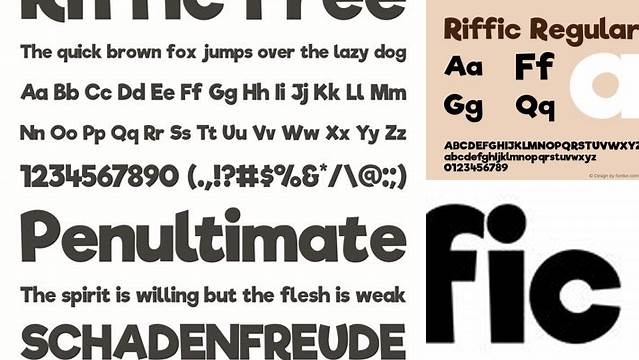
Hey guys! If you're on the hunt for a cool, versatile font, you've landed in the right spot! We're diving deep into the world of the Riffic Regular font, and the best part? You can snag a free download! This article is your ultimate guide, covering everything from the font's unique characteristics to where you can find it and how to use it in your projects. So, buckle up, because we're about to embark on a font-tastic adventure! Let's get started and explore why the Riffic Regular font is a must-have for your font collection.
What is Riffic Regular Font?
First things first, what exactly is the Riffic Regular font? Well, it's a stylish, modern font that's perfect for a wide range of design projects. Think of it as your design Swiss Army knife – it's adaptable, clean, and looks great in various contexts. It's known for its readability and its ability to add a touch of elegance to any project. Whether you're a seasoned designer or just starting, the Riffic Regular font is a great choice. The design of the Riffic Regular font typically features clean lines and a balanced aesthetic, making it ideal for both headlines and body text. Its versatility means it can be used for everything from website design to print materials. Its design makes it stand out without being overwhelming, ensuring your message is conveyed clearly and with style. Many designers and creatives adore the Riffic Regular font due to its inherent flexibility. Its neutral yet eye-catching design allows it to complement various design styles and themes. This flexibility is a key reason why it's so widely used and a valuable asset in any designer's toolkit. When you're looking for a font that works across multiple platforms and projects, the Riffic Regular font fits the bill. It’s suitable for both digital and print media, providing consistent results and a professional appearance. This consistency is crucial for maintaining brand identity and ensuring your message is understood, no matter the medium. Plus, it looks super rad, right?
Key Features of Riffic Regular Font
So, what makes the Riffic Regular font stand out? Let's break down some of its key features that contribute to its popularity and usability. The first thing you'll probably notice is its clarity. The Riffic Regular font is designed to be highly readable, making it a great option for both headlines and body text. This is especially important in today's world, where content is consumed quickly across various devices. The font’s balanced design ensures that each letter is easily distinguishable, reducing eye strain and increasing readability. Another noteworthy feature is its versatility. The Riffic Regular font adapts well to different design styles and contexts, making it suitable for a wide range of projects. Whether you are working on a website, a print advertisement, or social media graphics, this font provides a professional and modern look. You can pair it with other fonts to create a unique aesthetic, or use it as a primary font to build a consistent brand identity. Finally, it's the aesthetic of the Riffic Regular font. It balances modernity with a touch of simplicity, making it visually appealing without being overly distracting. Its clean lines and balanced letterforms add a touch of elegance to any design, ensuring that it complements your message rather than competing with it. This aesthetic feature allows the font to blend seamlessly with different design elements, maintaining a cohesive and polished look. When you choose the Riffic Regular font, you're also selecting a font that can stand the test of time. Its classic design avoids trends that could make it seem outdated. This enduring quality ensures that your designs remain relevant and aesthetically pleasing for years. The enduring nature of the Riffic Regular font means you invest in a design element that is both practical and stylish, offering a consistent and reliable option for all your needs.
Comparing Riffic Regular to Other Fonts
When choosing a font, it's essential to compare it to similar options. The Riffic Regular font holds its own in the crowded font market. Let's see how it stacks up against some popular alternatives. Consider the difference when juxtaposed against the bolder and more attention-grabbing impact of something like Roboto. Riffic Regular excels at balance and readability, ensuring your message is easily understood. Its softer features make it more suitable for applications where subtlety is desired. In contrast, options like Helvetica bring an element of timelessness to the design, sharing some characteristics of the Riffic Regular font. However, Riffic Regular distinguishes itself by offering a modern aesthetic, which often appears fresher and less formal than a font such as Helvetica. The advantage here is that Riffic Regular can be used to provide a modern appearance, while still ensuring that your design maintains a professional and polished look. In comparison to fonts like Arial, Riffic Regular offers more character. While Arial has a straightforward approach, Riffic Regular adds a bit more flair. This makes it ideal when you're trying to create content that stands out from the crowd without being too flashy. The unique elements of the Riffic Regular font allow it to make a strong statement, capturing the attention of your audience and allowing your brand identity to resonate. The design of the Riffic Regular font aims to combine readability with style, resulting in a versatile and effective font choice.